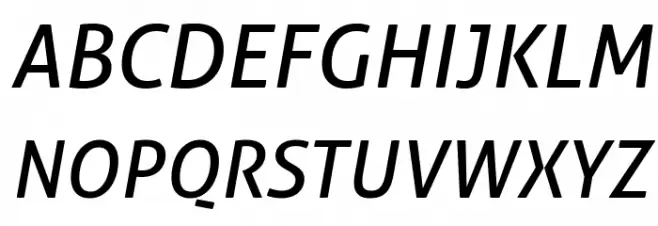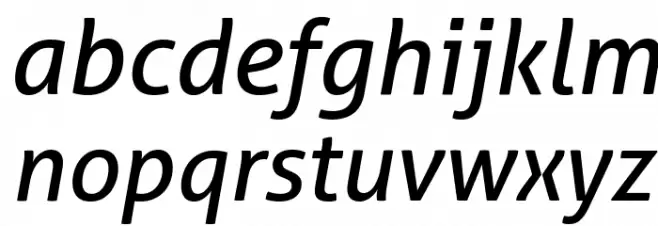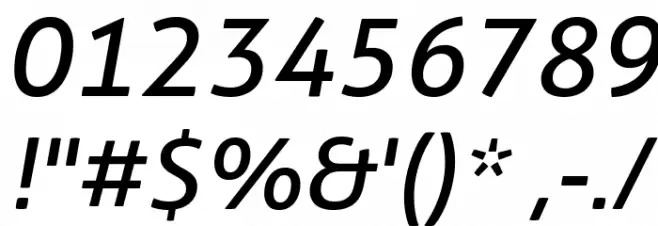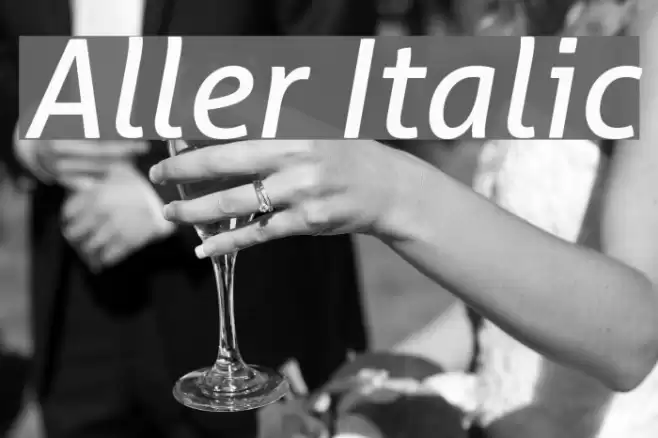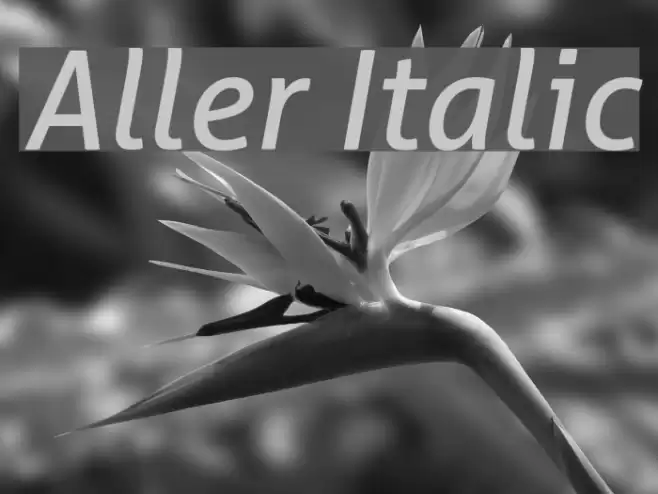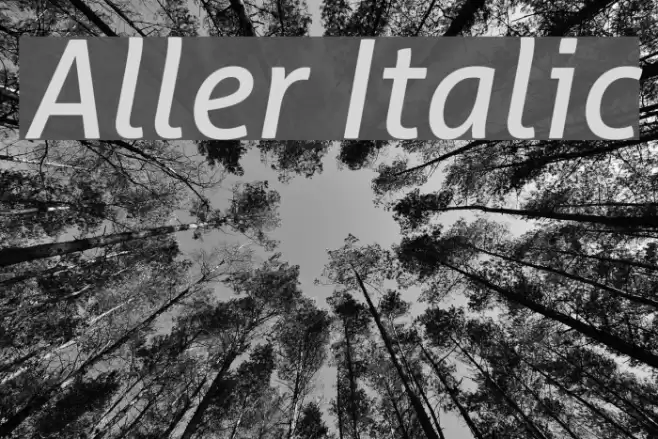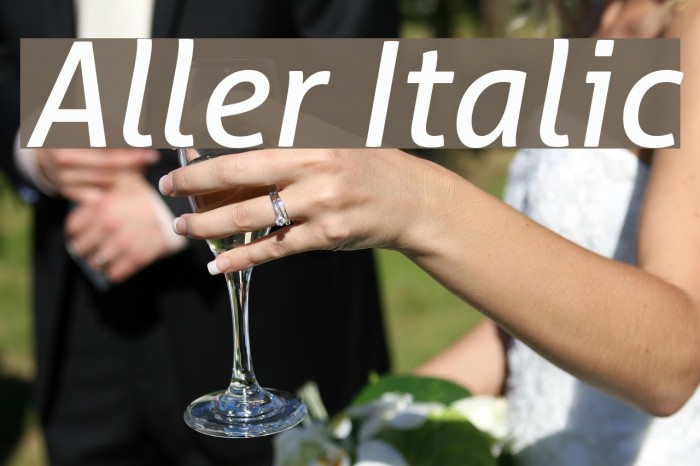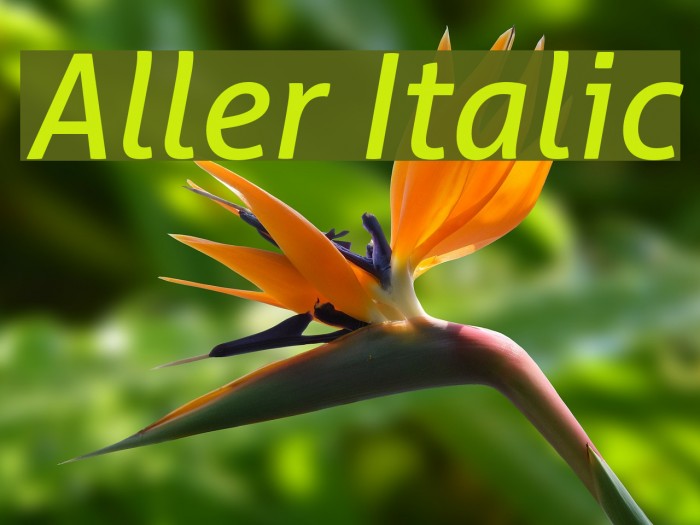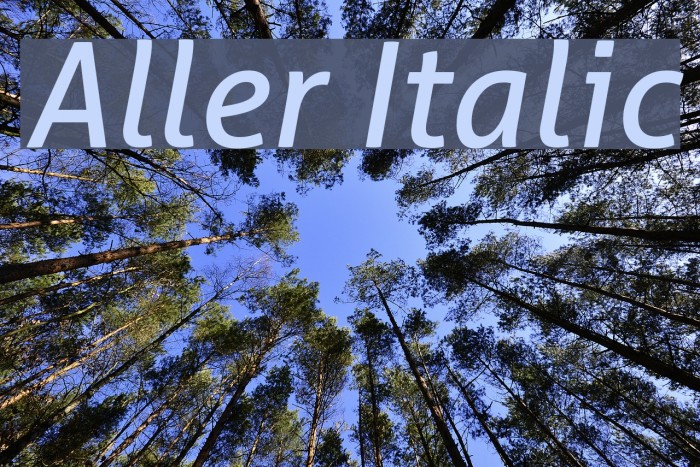
Aller Italic
This font features a clean and modern sans-serif style with a slight italic slant, giving it a dynamic and forward-moving appearance. The characters are well-proportioned with a consistent stroke width, contributing to its legibility and versatility. The uppercase letters are bold and assertive, while the lowercase letters maintain a friendly and approachable feel. Numerals are clear and distinct, making them suitable for both text and numerical data. The special characters are designed to complement the overall aesthetic, ensuring a cohesive look across various applications.
A modern sans-serif font with an italic slant, offering clarity and versatility.
- Proposed Projects: Ideal for branding, advertising, web design, and editorial projects where a modern and approachable look is desired.